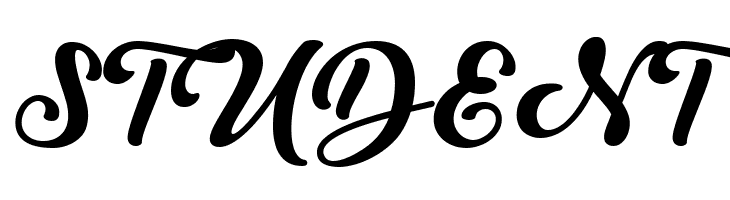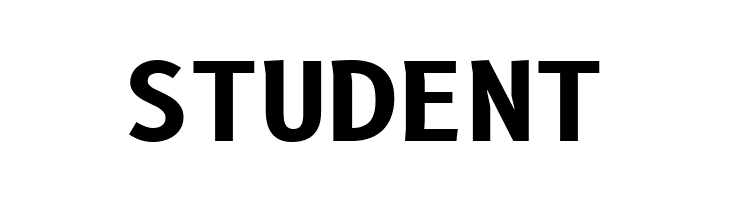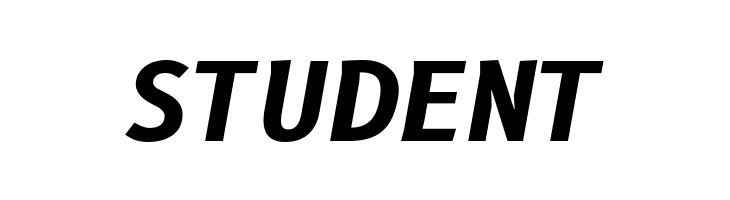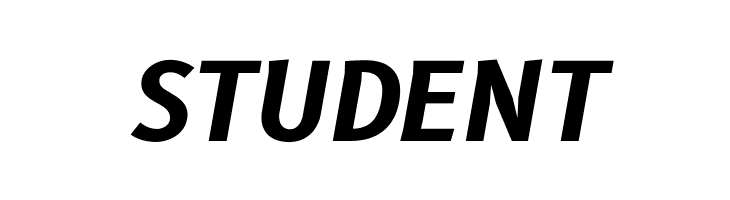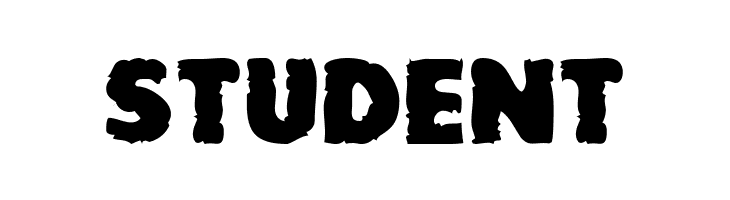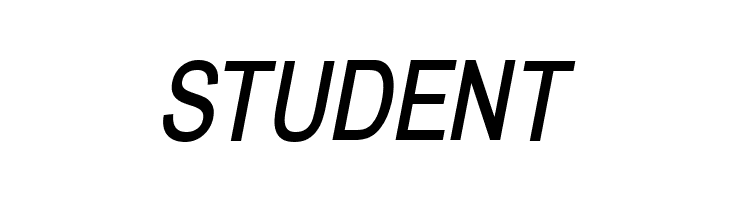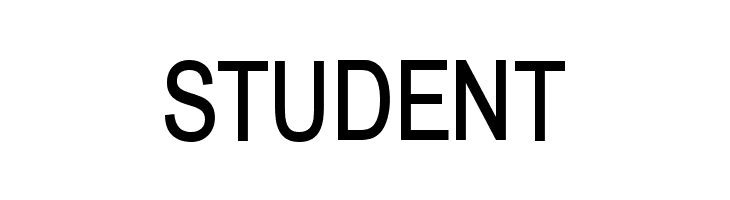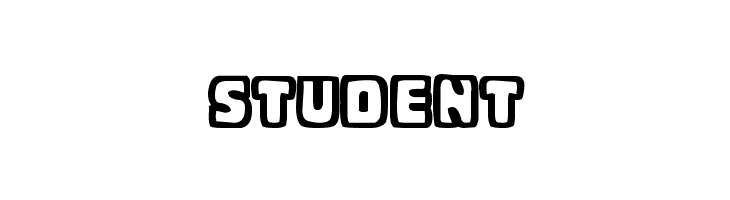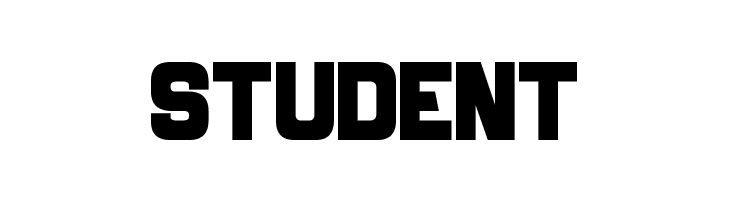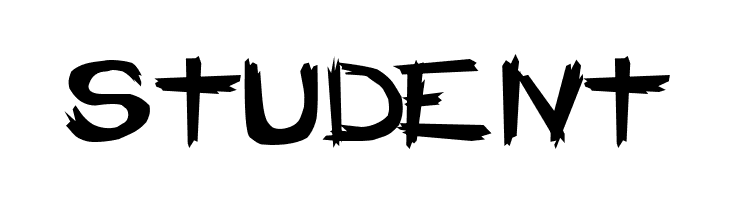
A bold, modern sans-serif font with clean lines and strong readability.
A bold, monospaced font perfect for technical and coding applications.
A bold, italic, monospaced font with modern aesthetics and strong visibility.
A bold, modern sans-serif font with clean lines and rounded edges.
A bold, italicized font with a dynamic and assertive style.
A bold, modern font with clean lines and a slightly condensed form.
A modern, bold italic font with smooth strokes and medium contrast.
A bold, modern sans-serif font with clean lines and excellent readability.
A bold, italicized font with a modern and sleek design.
A bold, modern font with thick, uniform strokes and high contrast, ideal for headlines.
A bold, modern sans-serif font with clean lines and uniform stroke width.
A bold, oblique sans-serif font with a modern and dynamic style.
A playful, bold font with rounded edges and a whimsical style.
A bold, playful font with thick, rounded characters and a cartoon-like appearance.
A bold, playful serif font with rounded serifs and whimsical design elements.
A bold, playful font with rounded edges and consistent stroke width.
A bold, italicized font with a modern, playful style and unique curvature.
A bold, italicized font with a dynamic and energetic style.
A bold, cursive font with elegant curves and expressive flourishes.
A bold, playful font with a hand-drawn, rounded style.
A bold, italic, and playful font with a handwritten feel.
A bold, italicized, and playful handwritten font with rounded strokes.
A bold serif font with a handcrafted, textured appearance.
A bold and italicized font with dynamic curves and strong strokes.
A bold, geometric font with a modern and dynamic style.
A whimsical and elegant script font with decorative swirls and bold strokes.
An elegant, whimsical script font with decorative curls and loops.
A bold, italicized font with dynamic and energetic styling.
A bold, modern font with thick strokes and strong presence, ideal for headlines.